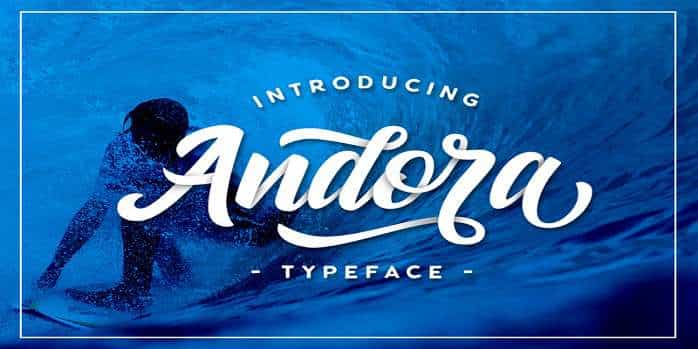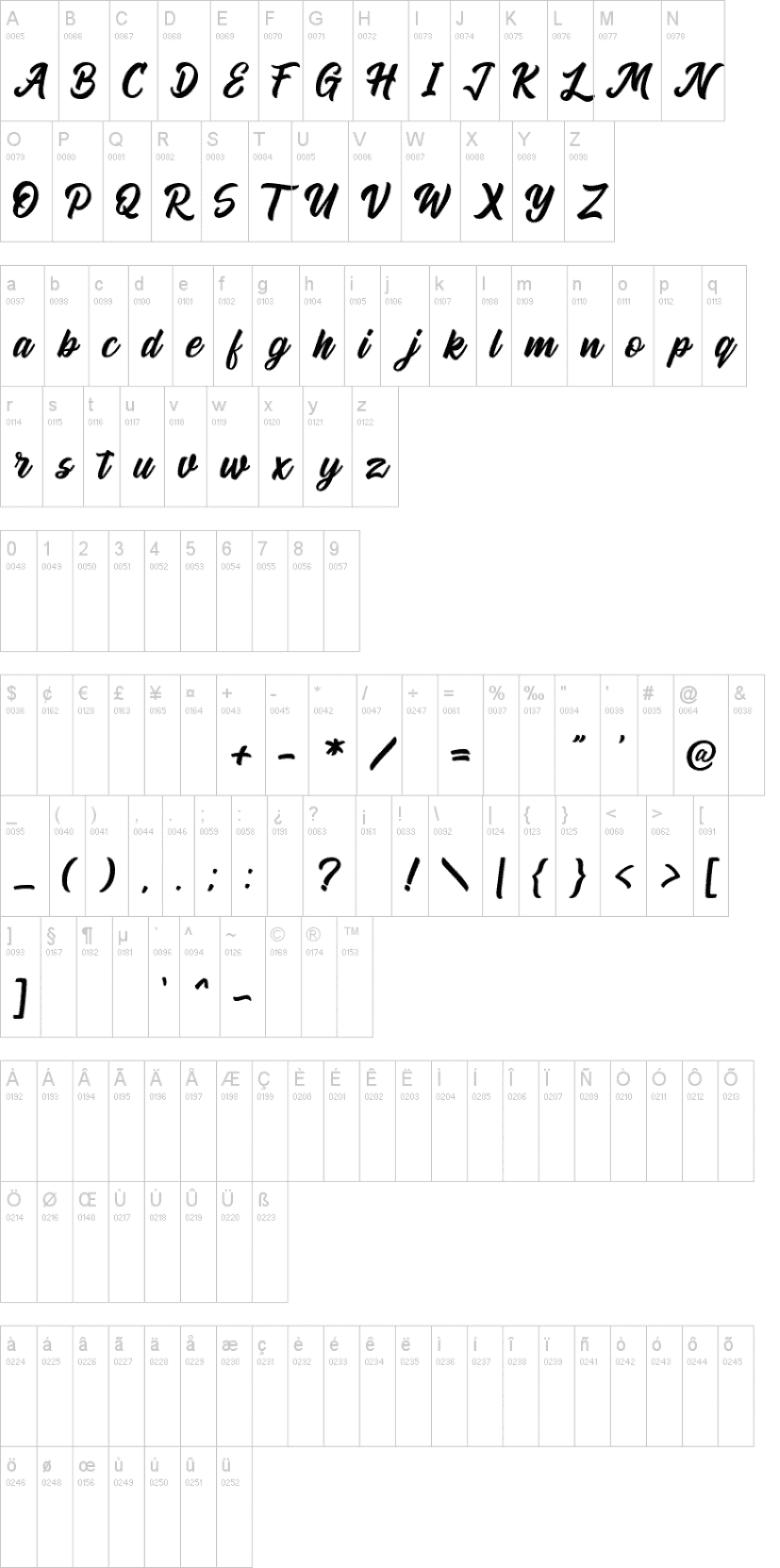
Introducing Andora! Hand written font that has a clean design and a relaxed feeling. Andora is best used in branding projects, product design, tshirt design or as a trendy text over any image background.